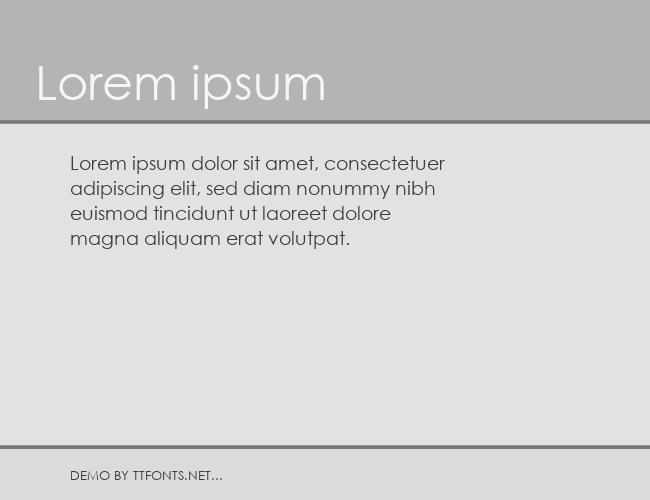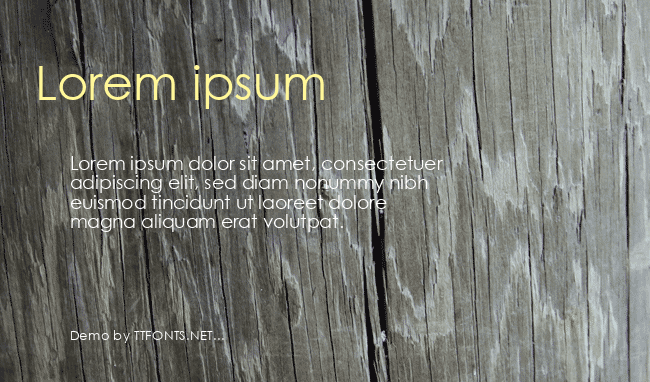
century gothic regular font
Century gothic maintains the basic design of 20th century but has an enlarged x height and has been modified to ensure satisfactory output from modern digital systems.
Century gothic regular font. Century gothic maintains the basic design of 20th century but has an enlarged x height and has been modified to ensure satisfactory output from modern digital systems. With regular weight and style download file name is century gothicttf. And sub family is regular. About the font century gothic is free for personal use only.
22 free century gothic fonts and 7 sponsored fonts available 1001 fonts is your favorite site for free fonts since 2001. Century gothic font family. A design based on monotype 20th century which was drawn by sol hess between 1936 and 1947. A design based on monotype 20th century which was drawn by sol hess between 1936 and 1947.